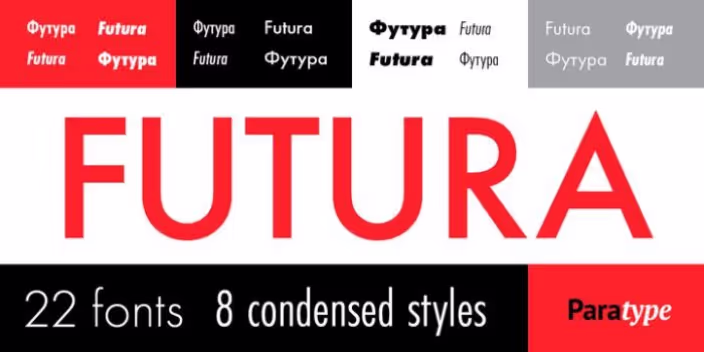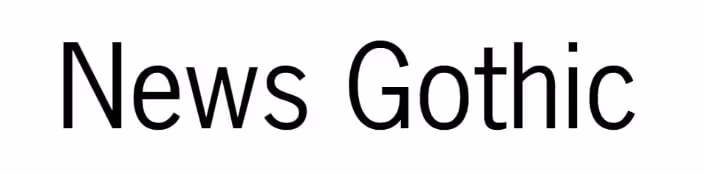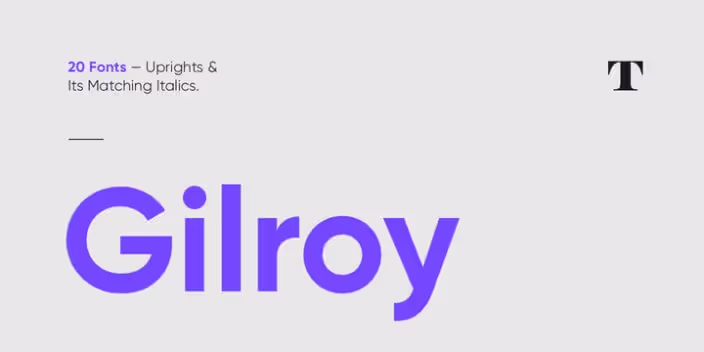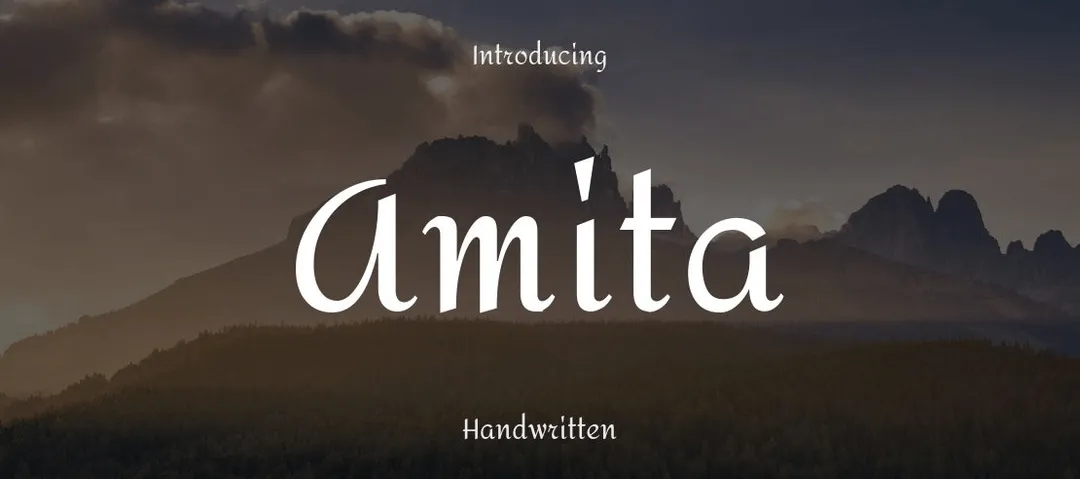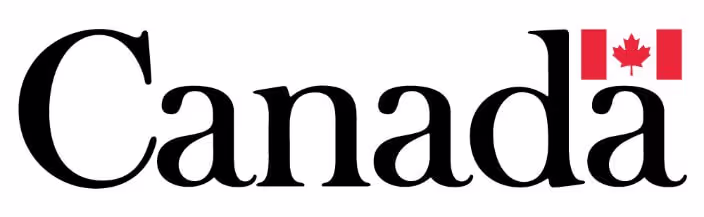
The 30 Most Popular Fonts in Graphic Design
From the traditional and classy serif, to techy and clean sans serif fonts, we look at 30 most popular fonts in graphic design.
Whether it’s fonts for logos, advertisement design, books, or even web design and digital ads as of late, some popular fonts always make the final picks.
You’d think the reason for that is that they are free or cheap, but the truth is that they are so well-designed, that they tick all the boxes: legibility, versatility, style, class, flexibility for other alphabets, and glyphs. Here are the best of the best fonts.
Popular serif fonts
Serif typography has an extra decorative stroke at the endings of lines in the lettering and the so-called feet of letters.
They tend to be perceived as more traditional and classic since they are the first kind of typography that dates back to the 18th century when old-style typography started being used in print. Companies who use them try to exude a sense of refinement, tradition and respectability as the core characteristics of their brands.
1. Didot
Even though it dates from the 18th century, the Didot font family is still a prominent typeface, now digitized and available for classy logo designs. Although mainly created as print typography, Didot found its place on a vast number of logos throughout the years. Some of them are CBS’ eye (redesigned since), and the Harper’s Bazaar logotype.
2. Bodoni
The creator of this font, Gianbattista Bodoni, was in his days called “The King of Printers”. He had created plenty of typefaces, but none of them was as successful and long-lived as Bodoni.
This font is characterized by unbracketed serifs and even geometric styling and is known as one of the first Didone fonts. Didone fonts have a high contrast between the wide and the narrow lines. The modern version of Bodoni was created by Morris Fuller Benton for American Typefounders between 1907 and 1911. It is most famously used in the Vogue logo.
3. Baskerville
Baskerville is also a Didone font, created by John Baskerville as the first of its kind in the UK. The most popular wordmark using Baskerville is the official Canadian Government logo. Nowadays, it’s mostly used as a display font and is reworked for the Adobe Fonts type foundry.
4. Garamond
With its first typeface designed in the 16th century, Garamond is a font family that steadily grew ever since. Originally created by type design and engraving master Claude Garamond, it found its widest use in the 20th century, in redesigns like Apple Garamond and Monotype Garamond, widely used in Microsoft products.
5. Times New Roman
The original Times font was designed for use for the Times Magazine by Stanley Morison and the Monotype Corporation, and its latest look has been adopted in 1972. Then, Microsoft Word acquainted it with the rest of the world. It is an Opentype font (OTF), which means that it’s free to use and open for redesigning.
6. New York
New York is one of the original typefaces, now made one of the free fonts by Apple, that were created for the 1982 McIntosh release by designer Susan Kare. This free version of the New York typeface is a revamped look of the original font but it still keeps its original retro and nostalgic feel.
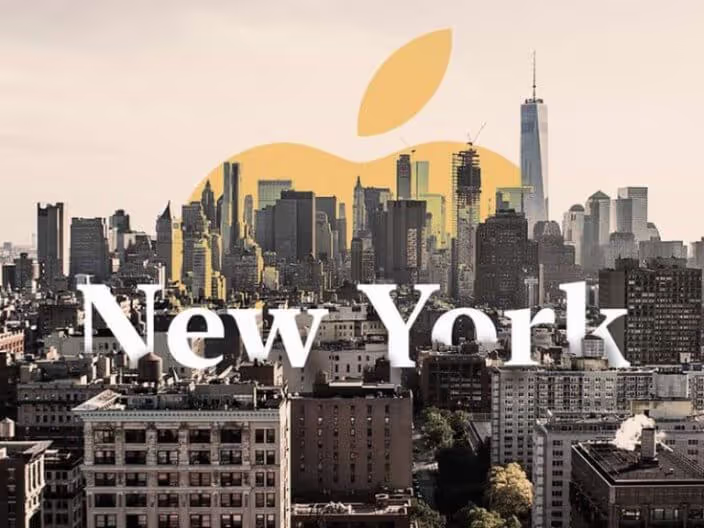
7. ITC Lubalin Graph
This slab serif font is designed by one of the most famous graphic designers of all time, especially when it comes to type design, Herb Lubalin. A slab serif font has big “shoes” at the ends of letters. This precise font’s underlying forms are those of Lubalin's previously released ITC Avant Garde Gothic, but its shapes were modified to accommodate large slab serifs.
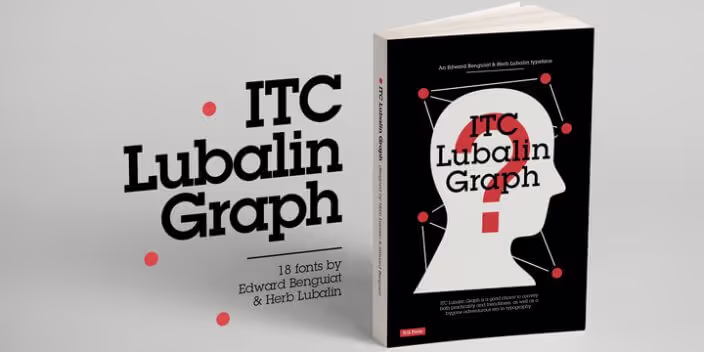
8. Gabriela Stencil
This unique stencil font published by Latinotype merges retro with vibrant and urban, into a rather unique serif font look. It is one of the newest entries on this list, gaining its popularity very recently.
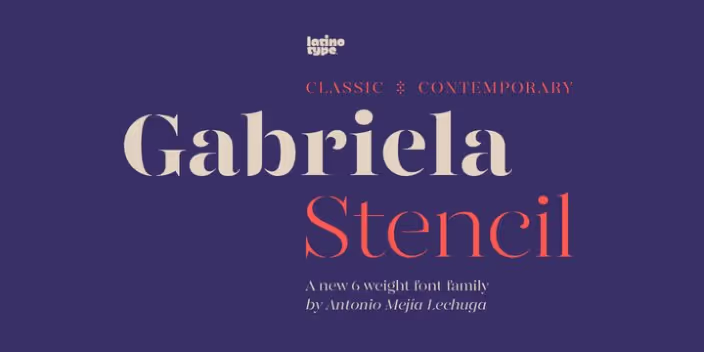
9. Minion
This stylish typeface was published as an Adobe original webfont in 1990. It was designed by Robert Slimbach, who was inspired by the late Renaissance-era type and intended for body text and extended reading. Minion was mostly designed with body text in mind due to its classic style, but it is slightly condensed and with large apertures to increase readability.
10. Georgia
This font was originally designed for the Microsoft Corporation by Matthew Carter in 1983, and since made available on Google Fonts. It is inspired by Scotch Roman fonts from the 19th century. Its name was originally Miller, but has been jokingly changed into Georgia to refer to a tabloid saying "Alien heads found in Georgia."
Popular sans serif fonts
Sans serifs don't have the extra swooshes and ornamental endings that serif fonts do. The sans serif font style is showing that your brand is approachable and modern, but still trustworthy and serious.